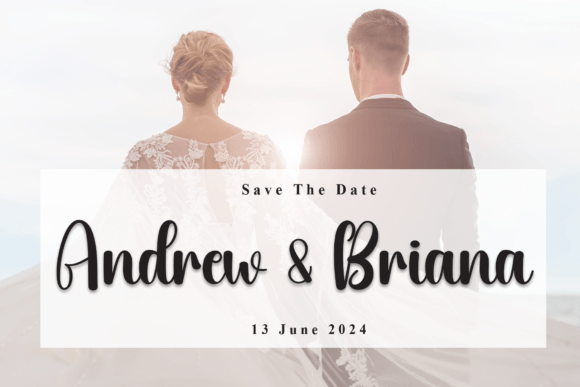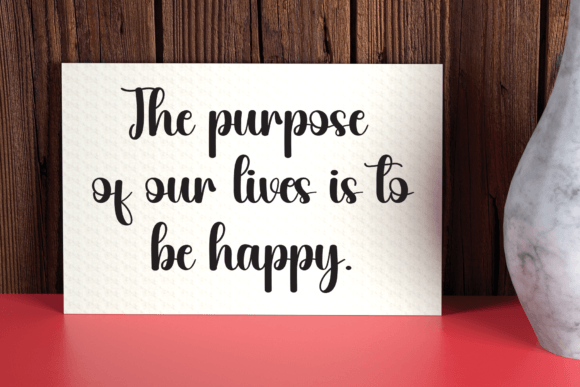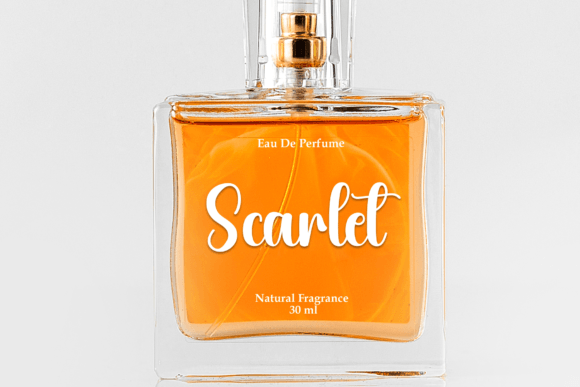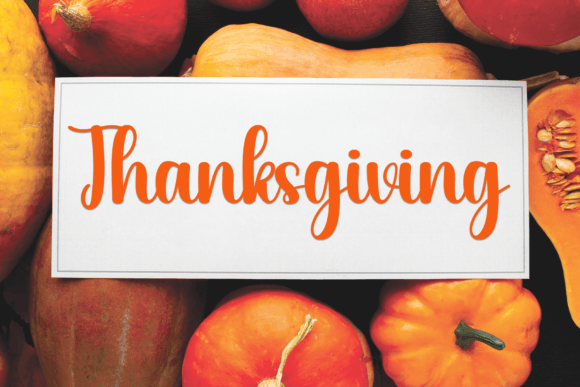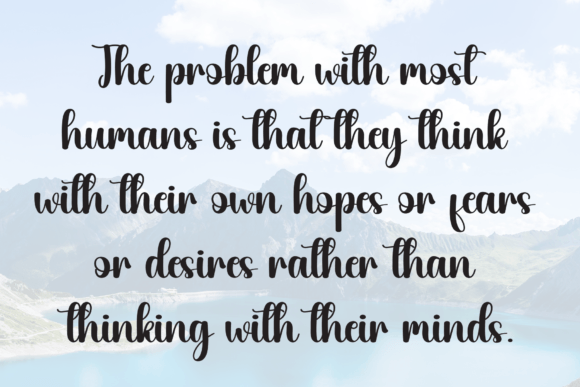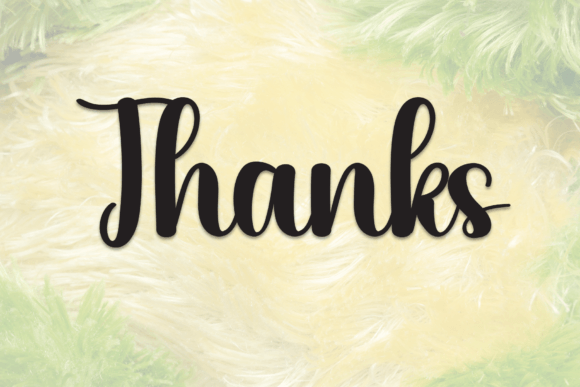
Bulky Font: The Sweet and Friendly Handwritten Font for Your Creative Projects
Are you a designer or crafter looking for a font that can add a personal touch to your creative projects? Look no further than Bulky Font, a sweet and friendly handwritten font that’s perfect for a wide range of designs. With its natural and unique style, Bulky Font is incredibly versatile and can be used for everything from branding and packaging to scrapbooking and DIY crafts.
The Characteristics of Bulky Font
Bulky Font is a handwritten font that’s characterized by its bold, yet elegant strokes. The font has a natural, organic feel that’s reminiscent of handwritten text, making it perfect for designs that require a personal touch. The letters are carefully crafted to have a unique and distinctive look, which sets Bulky Font apart from other fonts.
One of the standout features of Bulky Font is its friendly and approachable style. The font has a warm and inviting feel that’s sure to make your designs stand out. Whether you’re creating a logo, a poster, or a social media graphic, Bulky Font is the perfect choice for adding a touch of personality to your work.
The Benefits of Using Bulky Font
So why choose Bulky Font for your creative projects? Here are just a few benefits of using this versatile font:
- Unique and distinctive style: Bulky Font has a one-of-a-kind look that’s sure to make your designs stand out.
- Natural and organic feel: The font’s handwritten style gives it a warm and inviting feel that’s perfect for designs that require a personal touch.
- Versatile: Bulky Font can be used for a wide range of designs, from branding and packaging to scrapbooking and DIY crafts.
- Easy to read: Despite its bold style, Bulky Font is easy to read, making it perfect for designs that require a clear and concise message.
How to Use Bulky Font in Your Designs
So how can you use Bulky Font in your designs? Here are a few ideas to get you started:
- Branding and packaging: Use Bulky Font to create a unique and memorable brand identity.
- Scrapbooking and DIY crafts: Add a personal touch to your scrapbooking and DIY crafts with Bulky Font.
- Posters and flyers: Use Bulky Font to create eye-catching posters and flyers that grab attention.
- Social media graphics: Add a touch of personality to your social media graphics with Bulky Font.
Tips for Getting the Most Out of Bulky Font
Here are a few tips for getting the most out of Bulky Font:
- Experiment with different colors: Try pairing Bulky Font with different colors to create a unique and eye-catching design.
- Play with font sizes: Experiment with different font sizes to create visual interest and hierarchy in your design.
- Combine with other fonts: Try pairing Bulky Font with other fonts to create a unique and interesting typography.
In conclusion, Bulky Font is a sweet and friendly handwritten font that’s perfect for designers and crafters looking to add a personal touch to their creative projects. With its natural and unique style, Bulky Font is incredibly versatile and can be used for a wide range of designs. Whether you’re creating a logo, a poster, or a social media graphic, Bulky Font is the perfect choice for adding a touch of personality to your work.